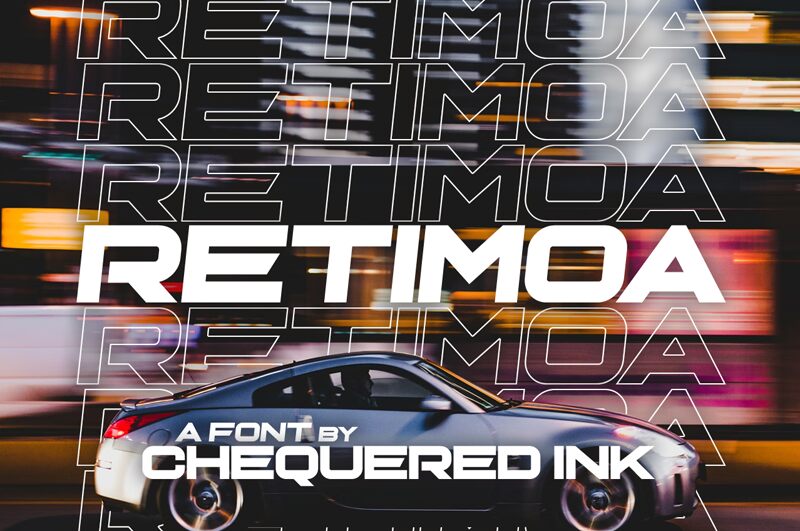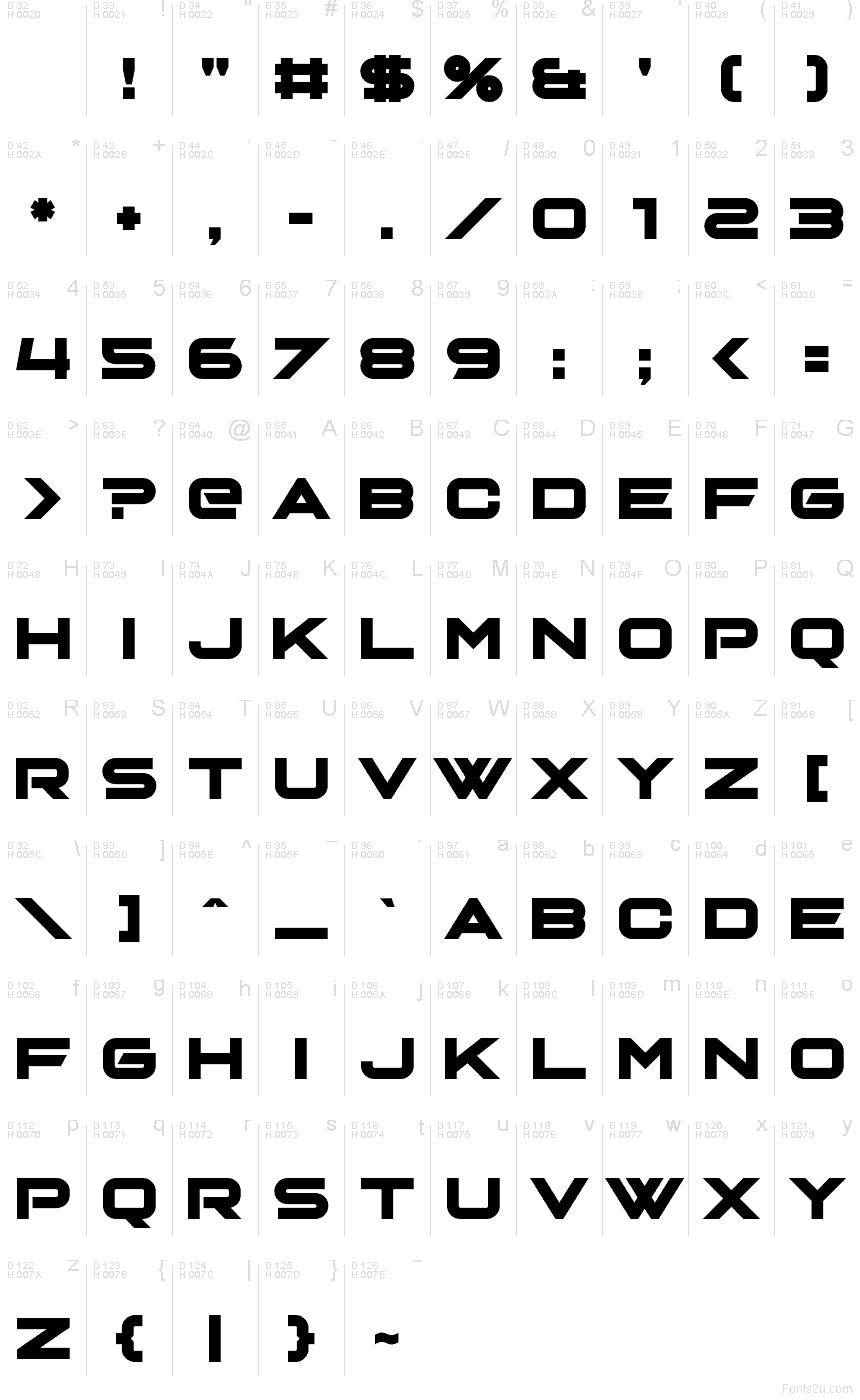
Retimoa Straight
Retimoa Straight font by Allison J. James of Chequered Ink is a free techno font with sharp, modular geometry and clean, sliced counters that feel machined rather than drawn. Its wide stance and tight, even rhythm give words a fast, forward glide—like vinyl-cut lettering on a ship hull or the side of a prototype drone. The weight stays solid without getting muddy, so it holds up when you need impact at a glance.
Using Retimoa Straight, you’ll get punchy results on sci‑fi game titles, esports branding, tech event posters, UI hero banners, product packaging, YouTube thumbnails, and futuristic album art. This free font also shines on stickers and decals where crisp edges matter. Pair it with a plain neo-grotesque sans for body text and give the headline a little extra tracking so the angular shapes can breathe.